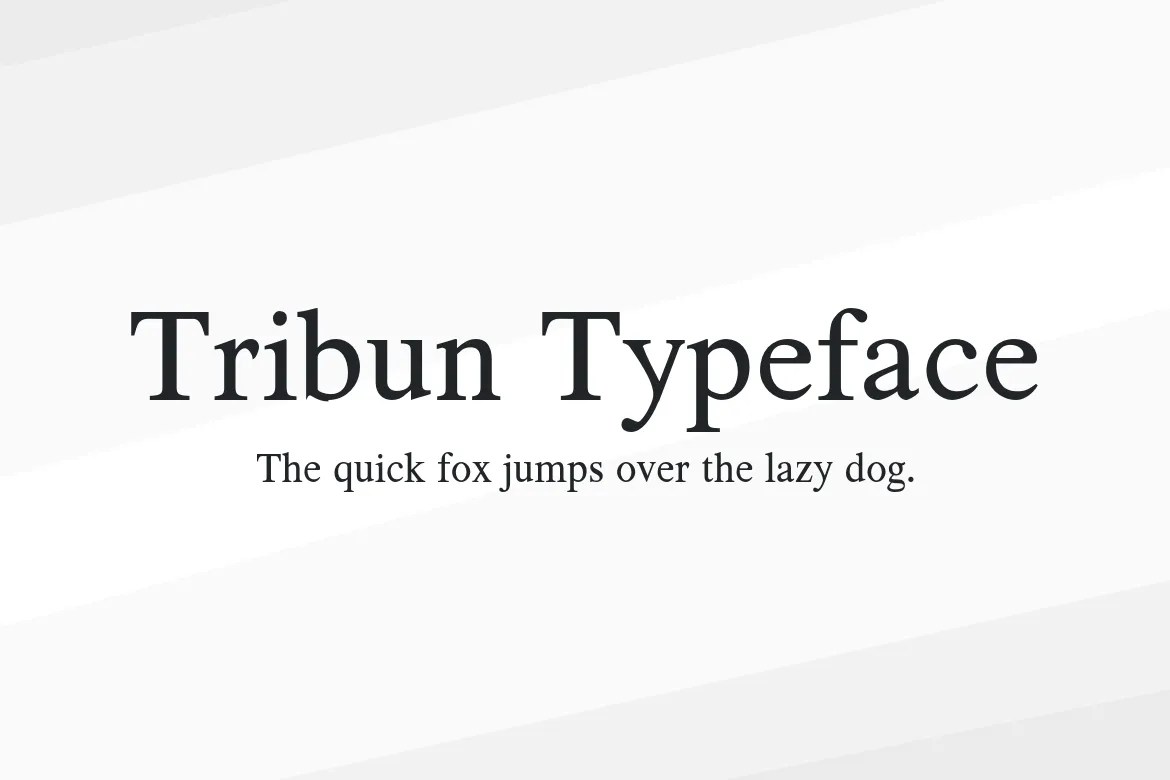
Tribun Font . Tribun has a high contrast to provide a. Tribun adf std is a free font for commercial use created by arkandis digital foundry. Tribun adf std bold italic. The serifs and sharpes are irregular and uneven, making them more visible in the italic style and at large sizes. This is more visible with the. Download free tribun adf std font by arkandis digital foundry. It is serif font and has 12 styles. Tribun std regular is the perfect font for all your fun designs. Serif and sharpes aren't equal and regular. Download tribun typeface, a serif font family made with the aim of having a newspaper effect. Tribun font is a gorgeous and sophisticated serif font family crafted & designed by arkandis digital foundry. The tribun std regular font was designed by hirwen harendal. Tribun adf std is a bold type font that can be used on any device such as pc,.
Tribun adf std is a free font for commercial use created by arkandis digital foundry. Download tribun typeface, a serif font family made with the aim of having a newspaper effect. It is serif font and has 12 styles. Serif and sharpes aren't equal and regular. Tribun adf std is a bold type font that can be used on any device such as pc,. The tribun std regular font was designed by hirwen harendal. Tribun adf std bold italic. Tribun std regular is the perfect font for all your fun designs. The serifs and sharpes are irregular and uneven, making them more visible in the italic style and at large sizes. Tribun font is a gorgeous and sophisticated serif font family crafted & designed by arkandis digital foundry.
Tribun Font Tribun std regular is the perfect font for all your fun designs. The tribun std regular font was designed by hirwen harendal. Tribun has a high contrast to provide a. Tribun font is a gorgeous and sophisticated serif font family crafted & designed by arkandis digital foundry. The serifs and sharpes are irregular and uneven, making them more visible in the italic style and at large sizes. Tribun adf std bold italic. Tribun adf std is a bold type font that can be used on any device such as pc,. Serif and sharpes aren't equal and regular. Download free tribun adf std font by arkandis digital foundry. Tribun adf std is a free font for commercial use created by arkandis digital foundry. It is serif font and has 12 styles. This is more visible with the. Tribun std regular is the perfect font for all your fun designs. Download tribun typeface, a serif font family made with the aim of having a newspaper effect.
Typography 101 How to Choose the Right Fonts for Your site Tribun Font The serifs and sharpes are irregular and uneven, making them more visible in the italic style and at large sizes. Download free tribun adf std font by arkandis digital foundry. Tribun adf std bold italic. The tribun std regular font was designed by hirwen harendal. Tribun font is a gorgeous and sophisticated serif font family crafted & designed by arkandis. Tribun Font.
Tribun Typeface Font Download Free Tribun Font Download tribun typeface, a serif font family made with the aim of having a newspaper effect. Tribun adf std is a bold type font that can be used on any device such as pc,. The tribun std regular font was designed by hirwen harendal. Tribun adf std bold italic. Serif and sharpes aren't equal and regular. Tribun font is a. Tribun Font.
Chicago Tribune Font Timeless Elegance Unveiled Tribun Font The tribun std regular font was designed by hirwen harendal. Tribun adf std bold italic. Tribun font is a gorgeous and sophisticated serif font family crafted & designed by arkandis digital foundry. Download tribun typeface, a serif font family made with the aim of having a newspaper effect. Tribun std regular is the perfect font for all your fun designs.. Tribun Font.
The Tribun Font Family An Ideal Choice for Text, Display, and Tribun Font Tribun font is a gorgeous and sophisticated serif font family crafted & designed by arkandis digital foundry. The serifs and sharpes are irregular and uneven, making them more visible in the italic style and at large sizes. Download tribun typeface, a serif font family made with the aim of having a newspaper effect. The tribun std regular font was designed. Tribun Font.
Tribun ADF Std Font download free Tribun Font Tribun adf std is a free font for commercial use created by arkandis digital foundry. Serif and sharpes aren't equal and regular. Tribun std regular is the perfect font for all your fun designs. Download tribun typeface, a serif font family made with the aim of having a newspaper effect. This is more visible with the. It is serif font. Tribun Font.